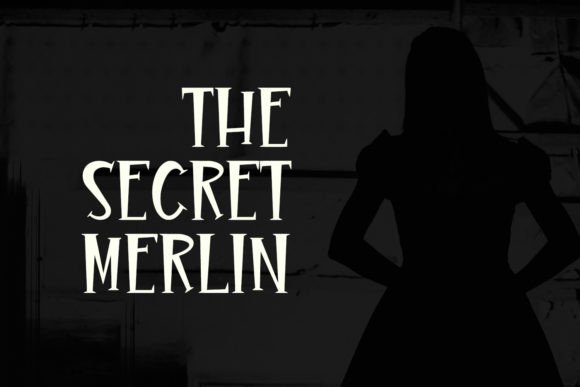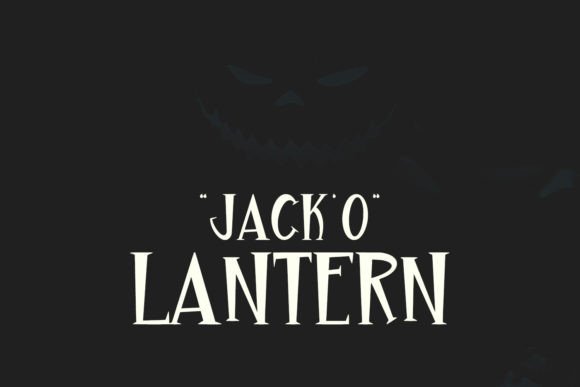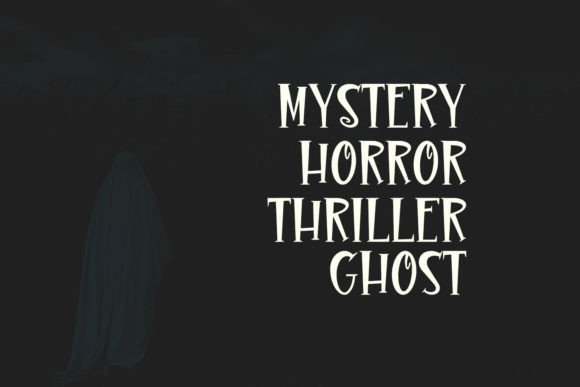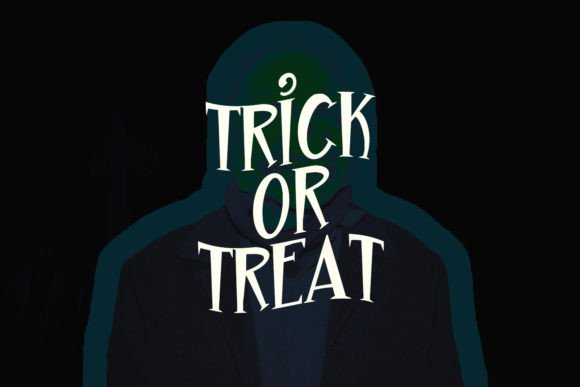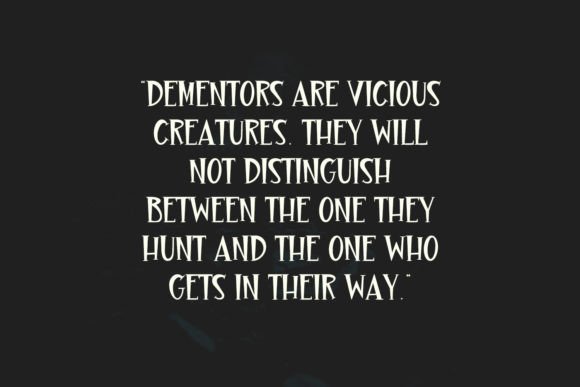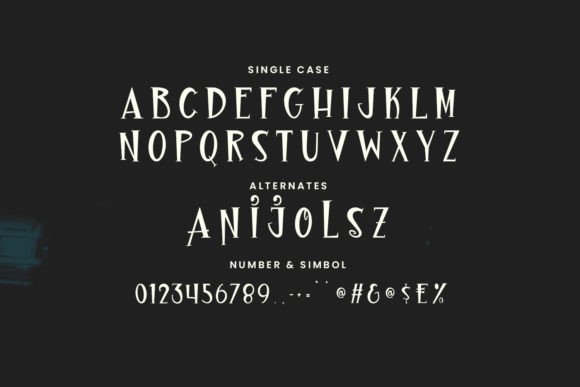
Introduction to Nabir House Font
Nabir House is a vintage horror decorative display font.
Bold stroke, fun character with a bit of ligatures and alternates This font is good for logo design, Social media, Movie Titles, Books Titles, a short text even a long text letter and good for your secondary text font with script or serif.
Nabir House Font offers exceptional quality and versatility, making it a valuable addition to your design toolkit. Whether you’re creating for personal projects or commercial use, Nabir House Font delivers professional results.